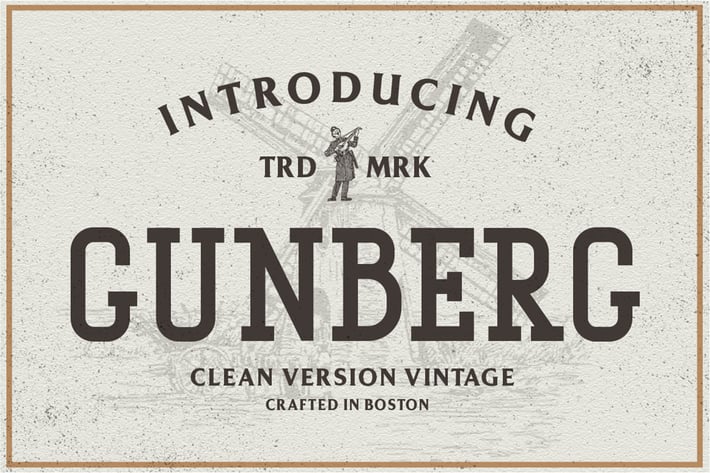
Gunberg Vintage Font
Gunberg Clean Version Font made carefully to create the perfect texture and suitable for each of your projects also great for Logotype, Branding Design, Logo Design, Digital Lettering Arts, T-Shirt/Apparel, Poster, Magazine, Signs, Advertising Design, and any vintage design needs.